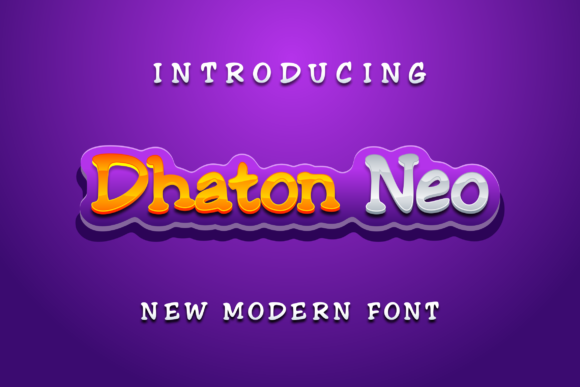
Introducing Dhaton Neo, the retro and authentic display font that adds a touch of timeless charm to your creative projects. This captivating font family is meticulously crafted by kalingga.albert, a font designer with a keen eye for detail and a passion for creating fonts that resonate with users.
Dhaton Neo is more than just a collection of letters; it's an artistic expression that captures the essence of retro aesthetics while maintaining a modern appeal. Its unique character set exudes a sense of nostalgia, evoking memories of classic typewriters and vintage signage. Whether you're designing a striking logo, creating eye-catching t-shirt designs, or crafting an immersive esport experience, Dhaton Neo is the perfect choice for adding a touch of timeless elegance.
With its versatility and wide range of applications, Dhaton Neo is a font that adapts seamlessly to various contexts. It shines brightly in headlines, grabbing attention with its bold and commanding presence. In body text, it flows effortlessly, enhancing readability while maintaining visual interest. Dhaton Neo's distinct letterforms add a touch of personality to any project, making it a standout choice for designers seeking to create truly memorable designs.
At its core, Dhaton Neo is a font that inspires creativity and empowers designers to express themselves fully. Its retro charm adds a touch of authenticity to modern designs, while its versatility ensures it seamlessly integrates into a wide range of projects. Whether you're a seasoned designer or just starting, Dhaton Neo is the perfect font to elevate your work and make a lasting impression.